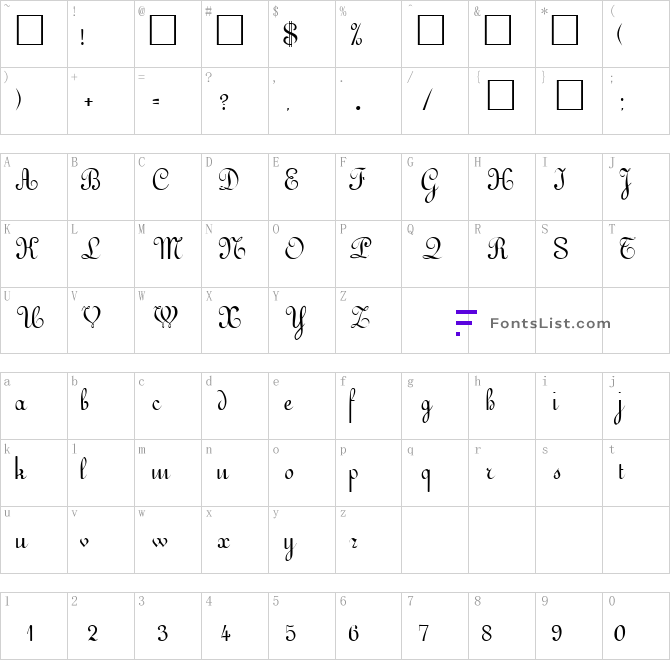
ArabescoScriptSSK-Regular.ttf is a very beautiful artistic font, ArabescoScriptSSK-Regular.ttf is widely used in the design and printing of various books and pictures,ArabescoScriptSSK-Regular.ttf has a strong visual impact,ArabescoScriptSSK-Regular.ttf is a commonly used font in newspapers, magazines and books, and is used in posters, e-commerce Poster design, store design, logo design, font design and other fields.ArabescoScriptSSK-Regular.